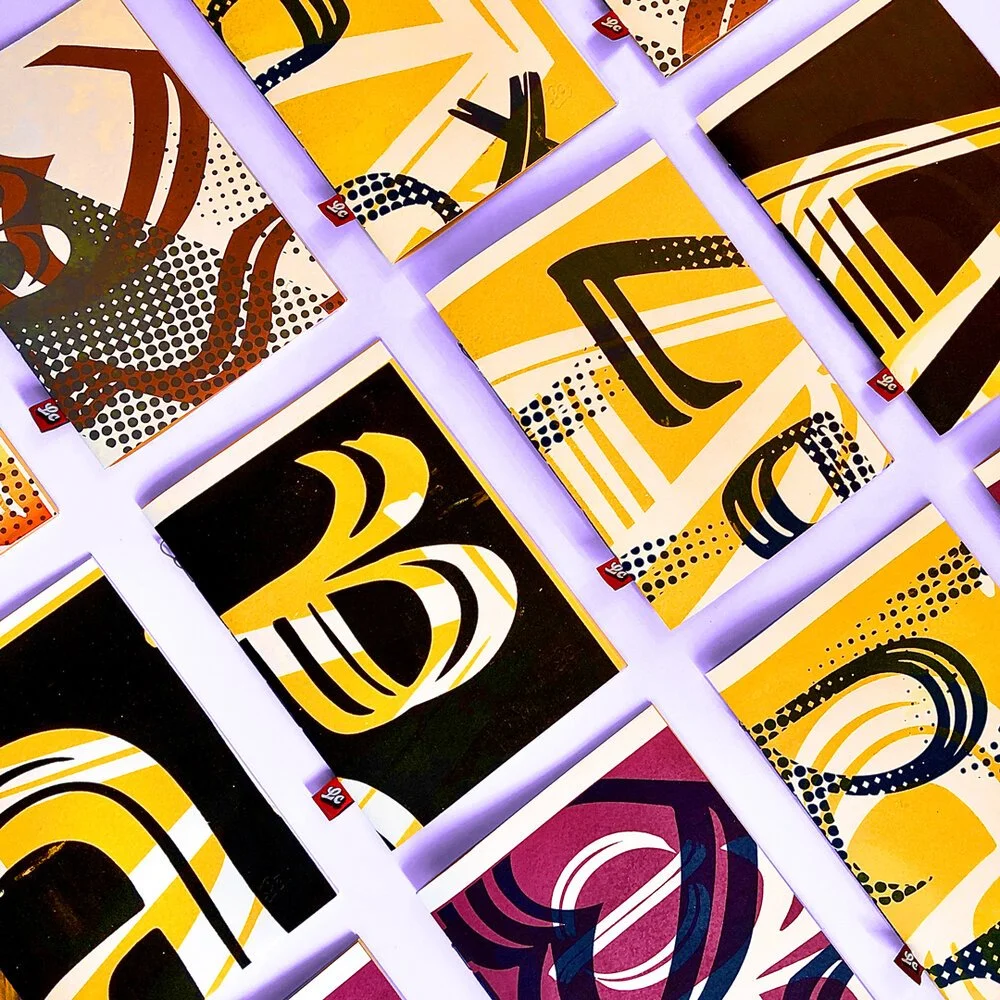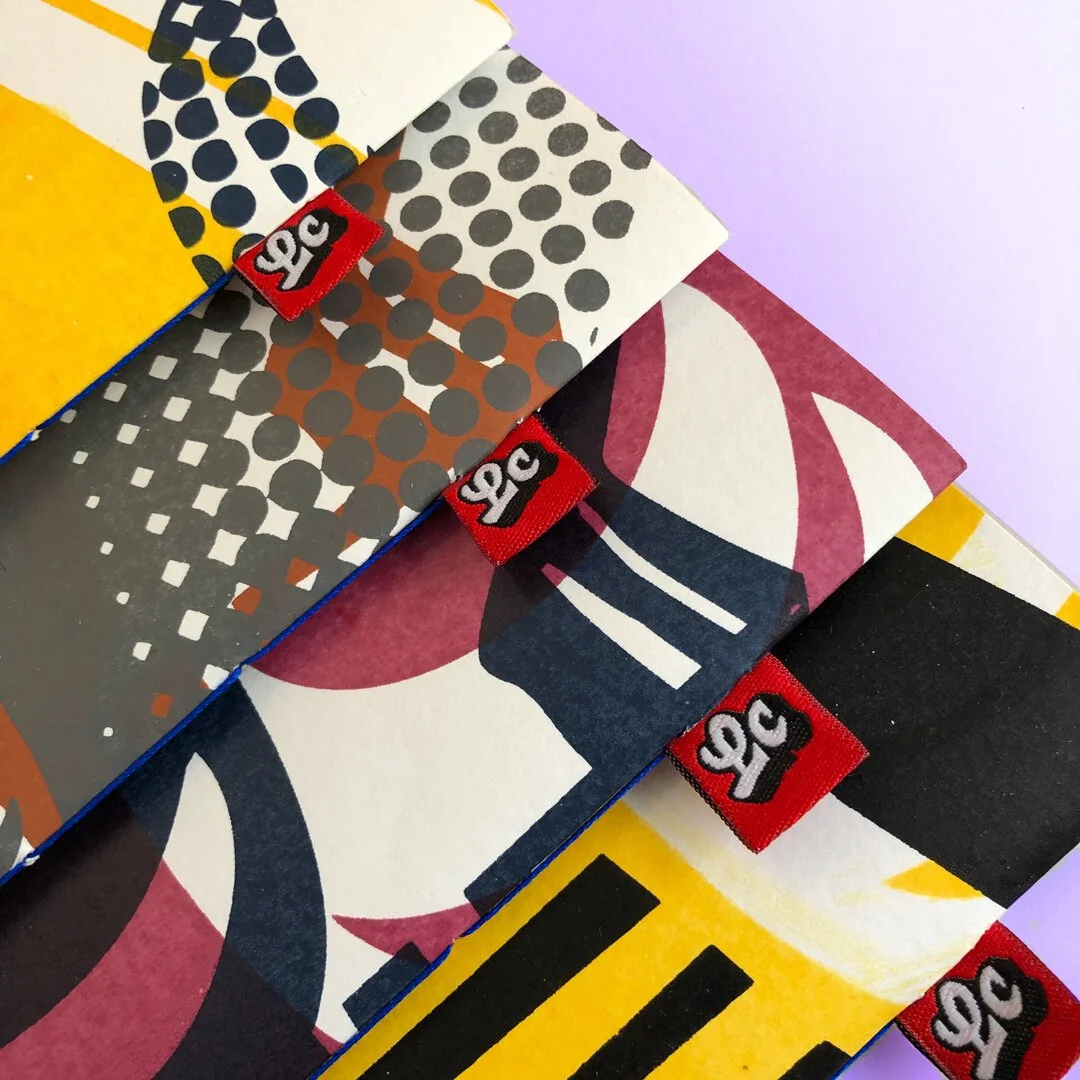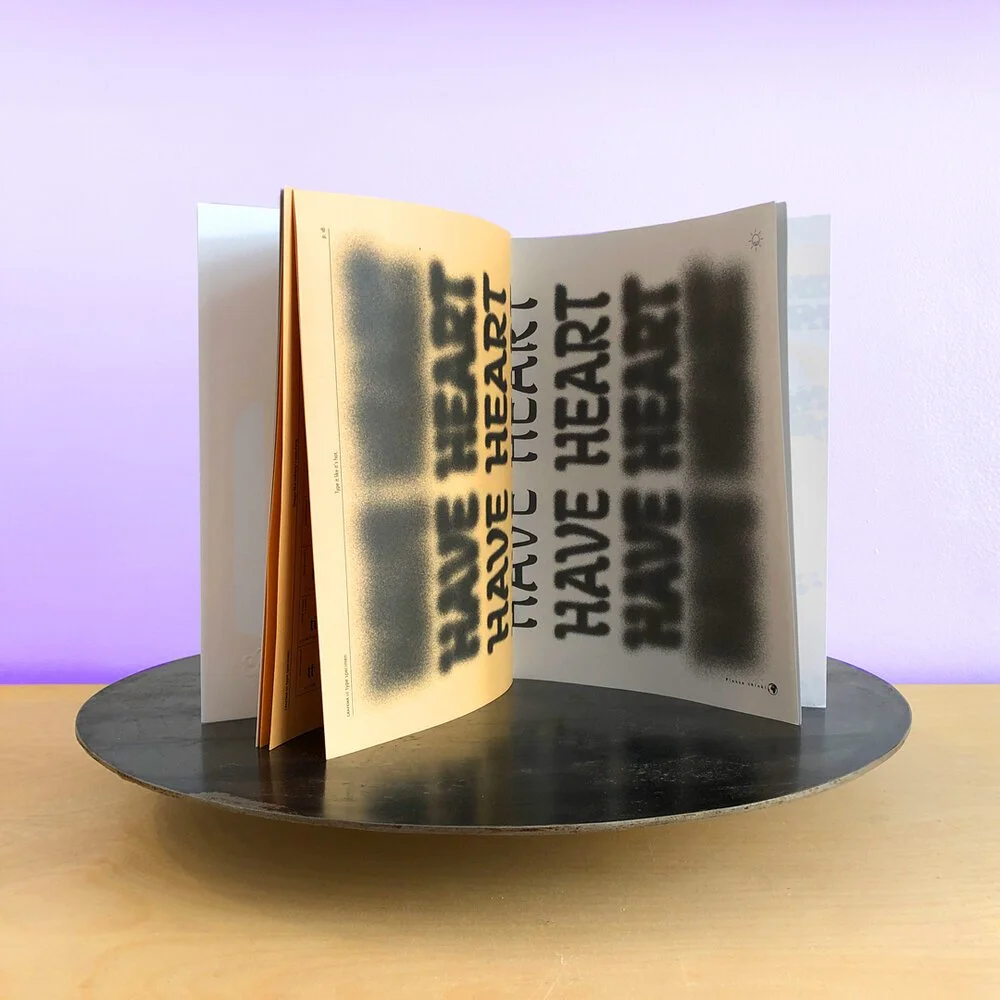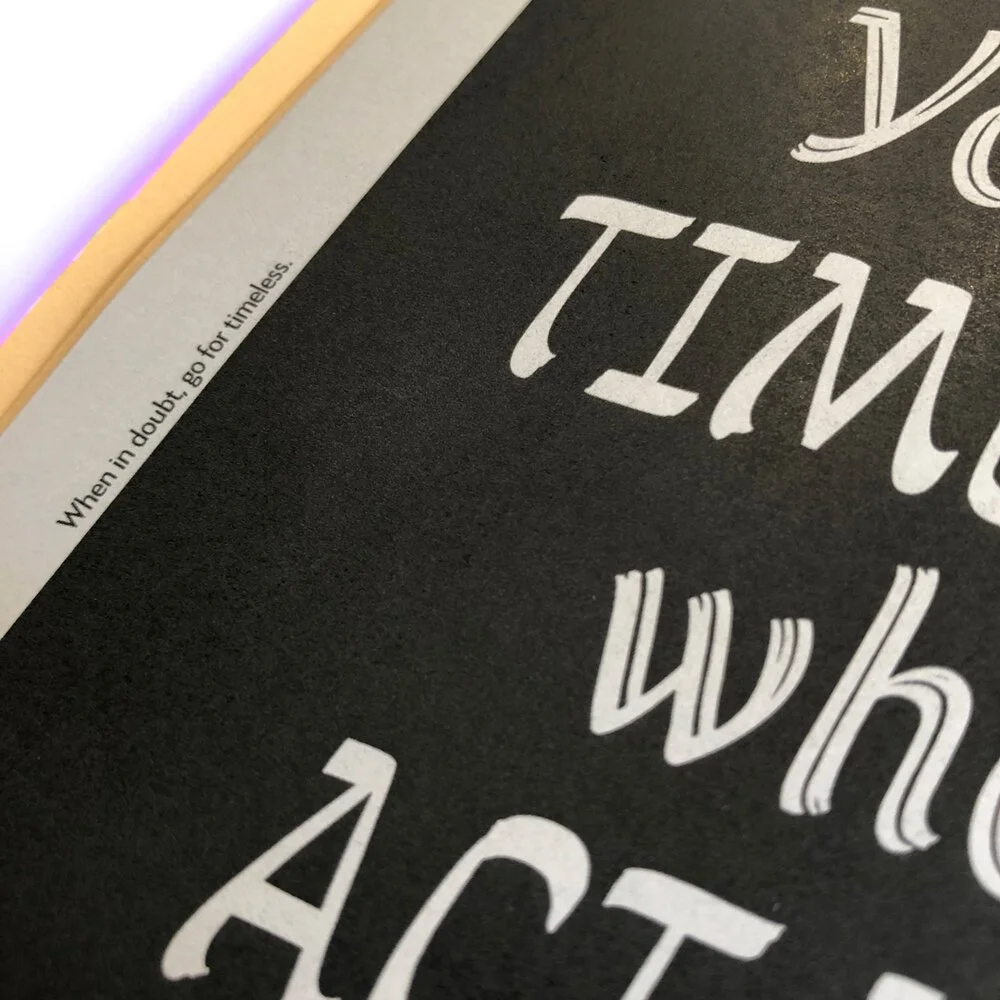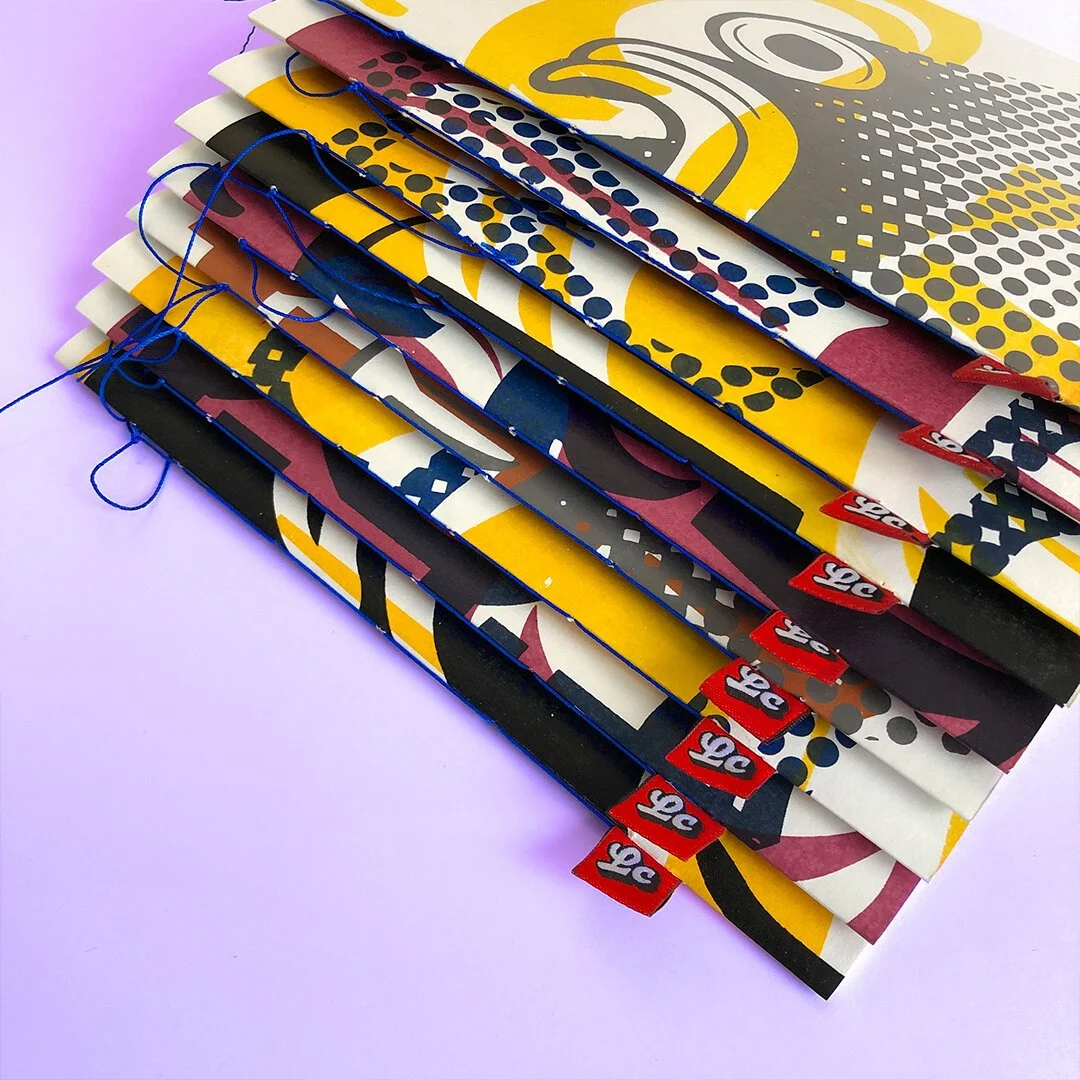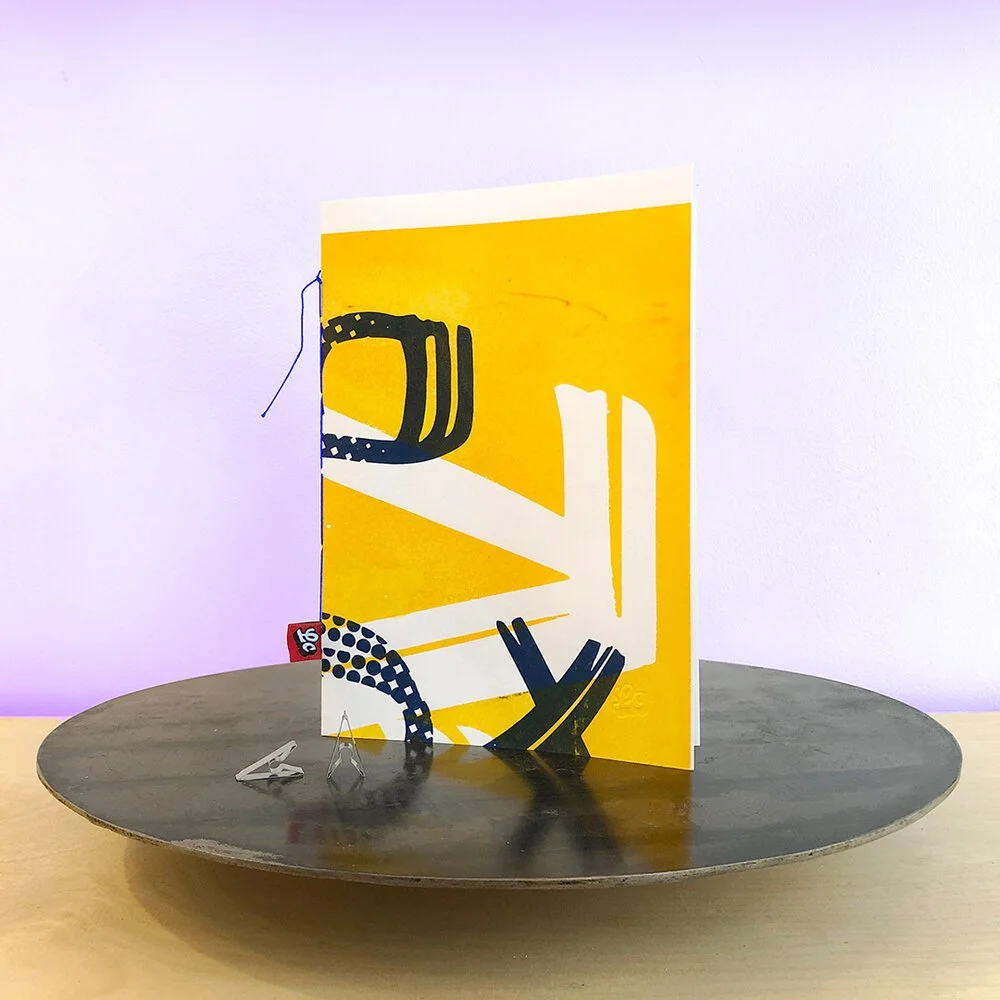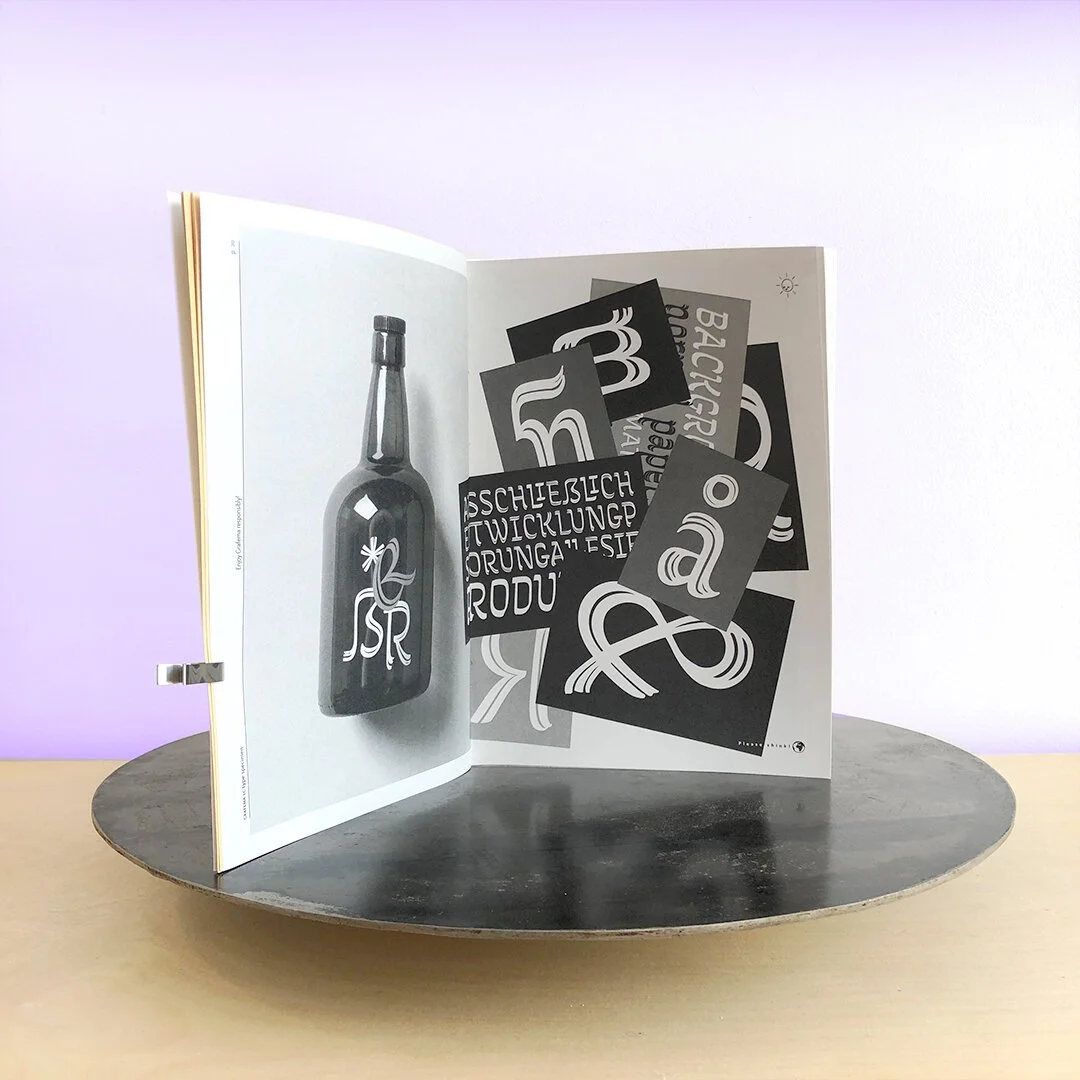
Grafema Type Specimen
24 pages showcasing our calligraphy based typeface - Grafema LC. First edition of 20 copies designed and handbound in-house. Covers were screenprinted on 200 gsm white paper by @Dzhingibi at nopointatelier and each one is unique. So you will get a random piece cover.
Printed on 80 gsm offset coloured paper. Stitched with a sturdy 100% cotton thread in reflex blue.